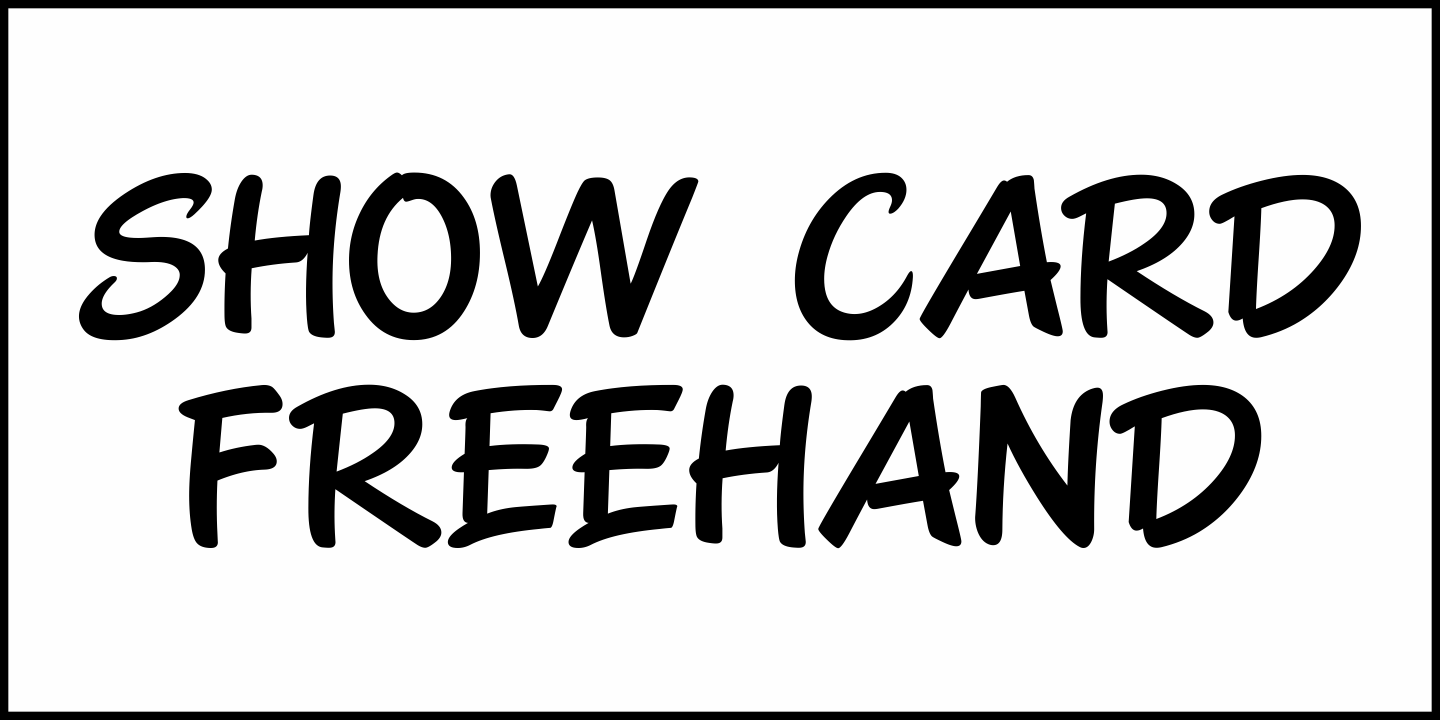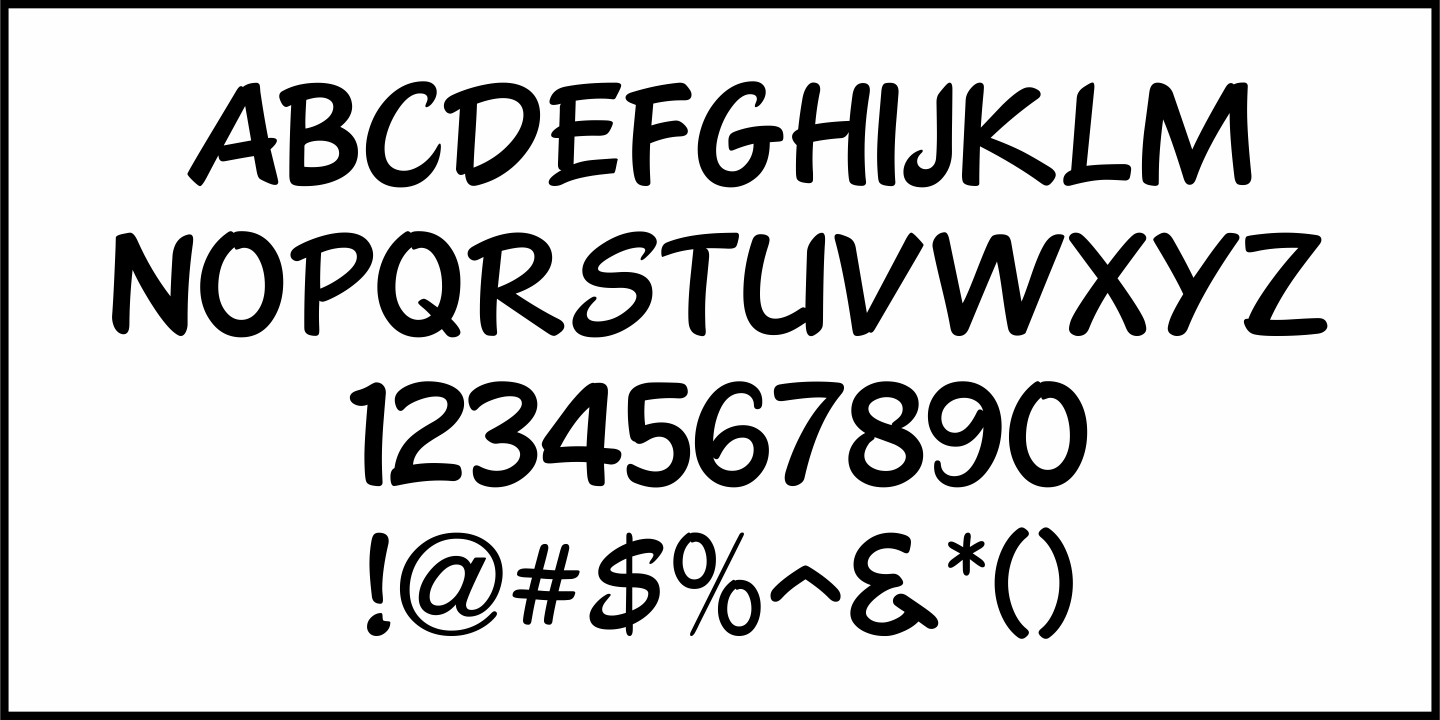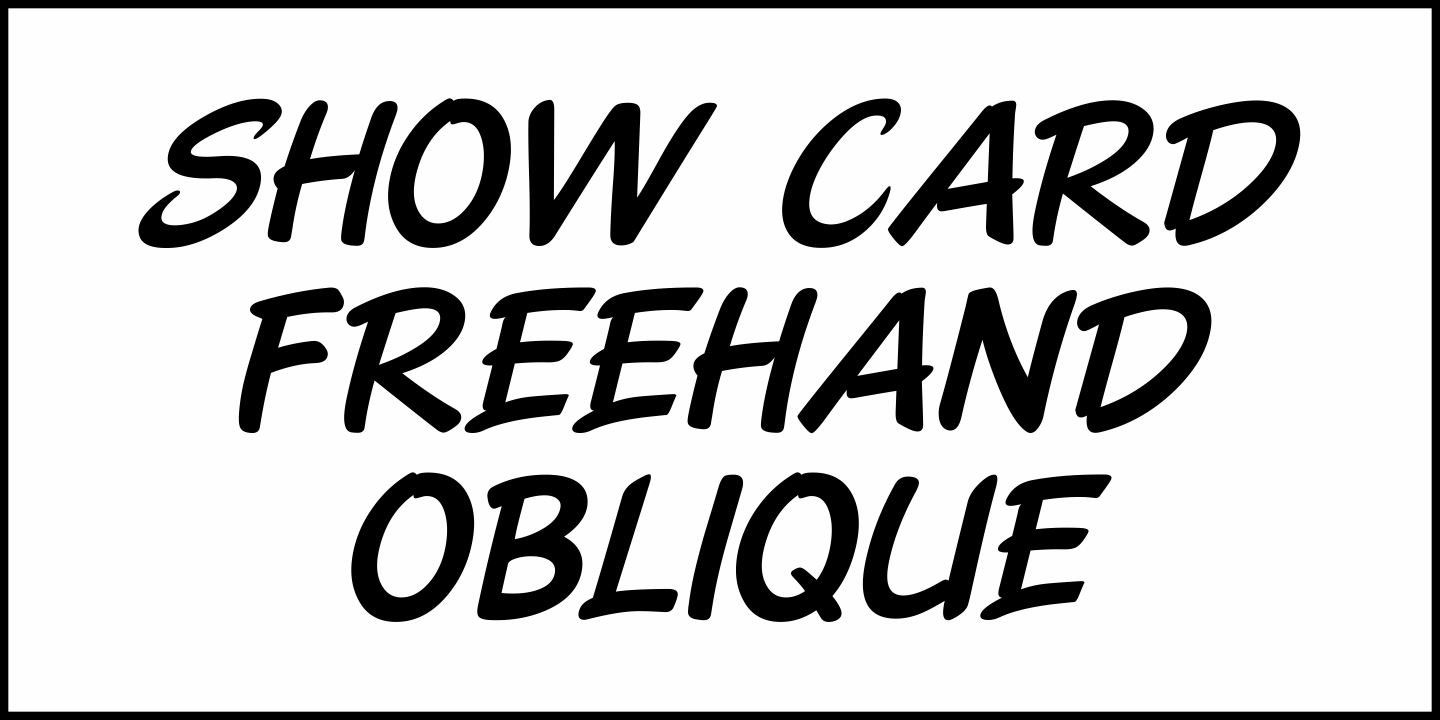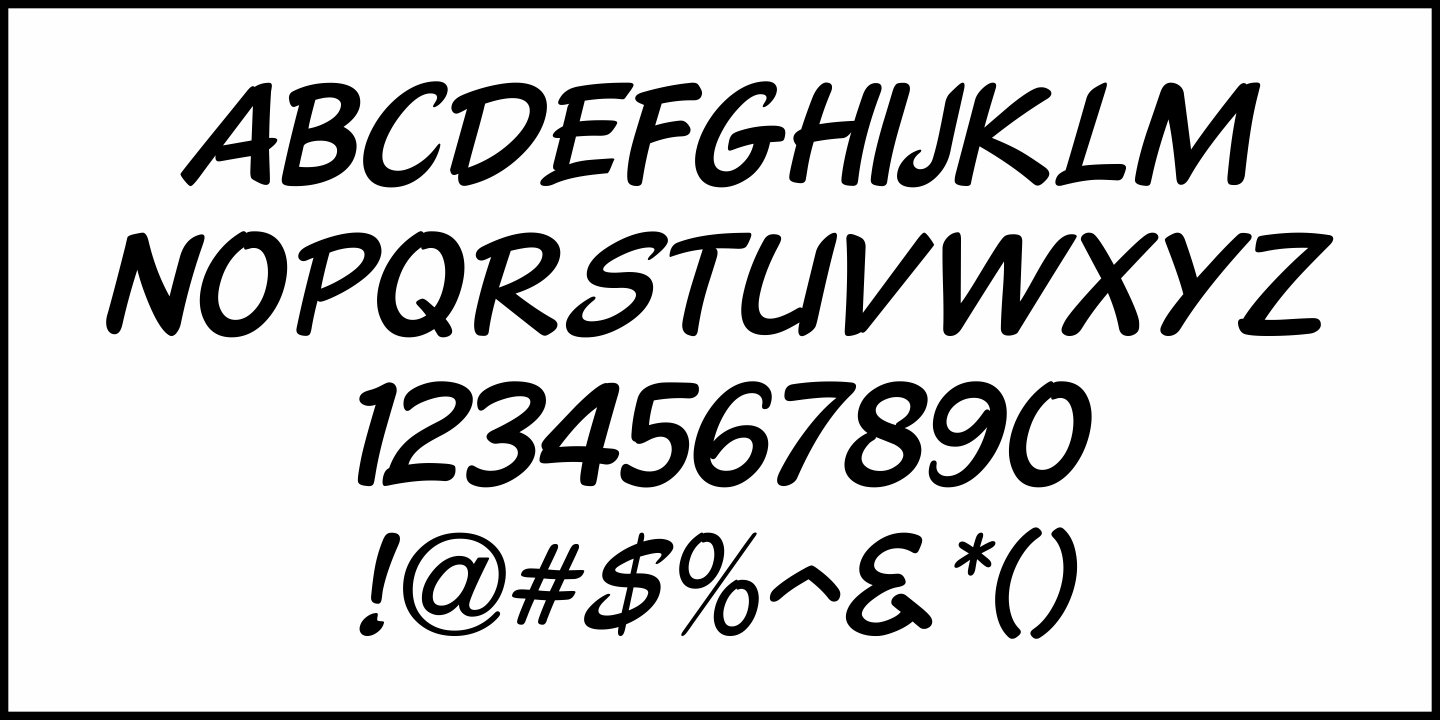
Show Card Freehand
The title and credits for the 1951 Dick Powell and Rhonda Fleming film “Cry Danger” were hand lettered in a freehand brush lettering often seen on store signs and show cards.
Serving as the model for Show Card Freehand JNL, this pleasant and casual typeface is available in both regular and oblique versions.